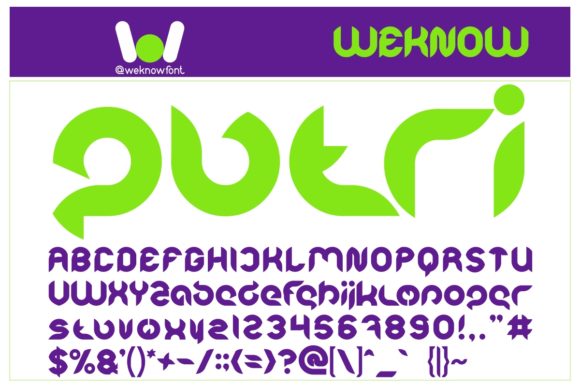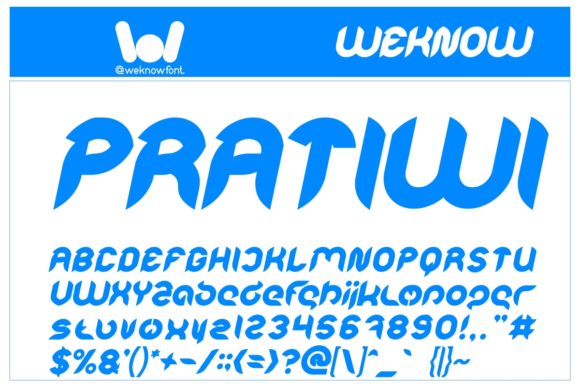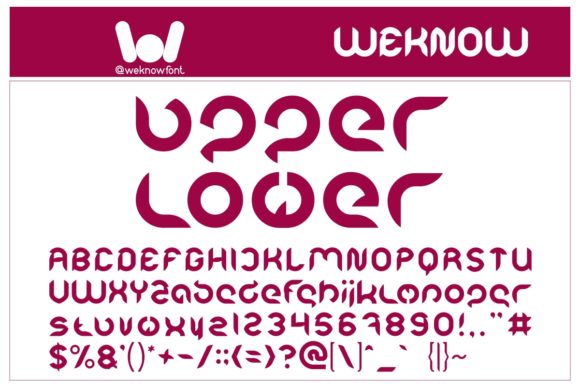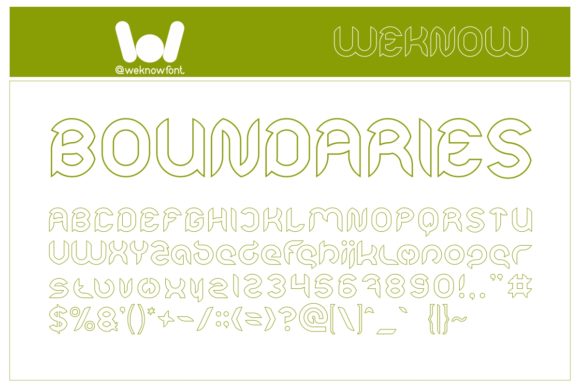
Discover the Urban Charm of Intan Font
Have you ever been stuck on a project, searching for the perfect font to bring your design to life? I know I have. It’s that moment when you’re scrolling through font libraries, and suddenly, a particular style catches your eye. For me, it was a font that exuded urban coolness and relaxed vibes – a font that I would later discover was called Intan Font.
Intan Font is more than just a display font; it’s an urban style that adds a touch of sophistication to any design. Whether you’re working on a branding project, a poster, or a social media graphic, Intan Font is an ideal choice. Its unique design makes it valuable for designers looking to create a distinct and memorable visual identity. With Intan Font, you can elevate your designs and give them a personal touch that sets them apart from the rest.
Intan Font Key Features
- Font Family: Intan Font is a sans-serif font family designed to be modern and clean. It comes in 7 weights, ranging from Thin to Black.
- Size: The font family includes a range of font sizes, from 8pt to 72pt, making it suitable for various applications, including body text and headings.
- Resolution: Designed to work well at high resolutions, Intan Font is ideal for use on screens and in digital media.
- Unique Characteristics: The font features a unique blend of modern and traditional elements, with a distinctive x-height and subtle rounded edges, giving it a friendly and approachable feel.
- Language Support: Intan Font supports a wide range of languages, including Latin, Cyrillic, and Greek scripts, making it a versatile choice for multilingual applications.
Intan Font Review
I recently had the chance to work with the Intan font, and I must say it’s a mixed bag. ✨ On the plus side, the font’s unique blend of traditional and modern elements is quite striking. The letterforms are well-crafted, with a pleasant balance of curves and lines. The font’s versatility is also noteworthy, making it suitable for a wide range of design applications.
However, there are a few areas where the font falls short. ⚠️ One major limitation is its relatively limited character set. While the font includes a decent selection of Latin characters, it lacks support for many non-Latin scripts, which may be a concern for designers working with multilingual content.
Another potential issue is the font’s slightly inconsistent spacing and kerning. While these issues are not catastrophic, they may be noticeable in certain contexts, particularly at smaller font sizes.
Pros and Cons:
- ✨ Unique blend of traditional and modern elements
- ✨ Versatile and suitable for various design applications
- ⚠️ Limited character set
- ⚠️ Inconsistent spacing and kerning
Overall, the Intan font is a solid choice for designers seeking a distinctive and versatile font. While it may not be perfect, its strengths outweigh its weaknesses, making it a worthwhile addition to any design toolkit.
Intan Font is a versatile font that can be used for a variety of purposes, including:
- Social media graphics and posts
- Printable art and wall decor
Some tips for getting the most out of Intan Font include:
- Use Intan Font in combination with other fonts to create a unique and eye-catching design.
- Create a new art piece using the Intan Font as the primary element.
- Use a contrasting background color to make the Intan Font stand out.
- Add abstract shapes or patterns to create a visually appealing composition.
- Experiment with different font sizes and styles to add depth and hierarchy to the art piece.
- Create a new poster design using the Intan Font as the primary text element.
- Use a bold and bright color scheme to match the energetic feel of the Intan Font.
- Add geometric shapes or icons to create a modern and edgy look.
- Experiment with different font sizes and styles to create a visually appealing hierarchy.